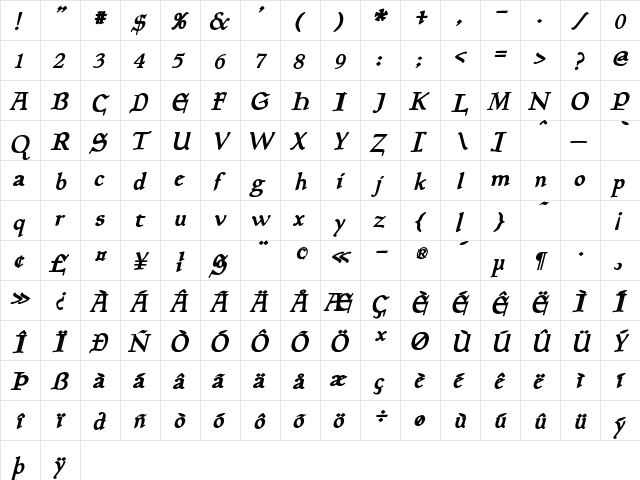
Planewalker Bold Italic Font Preview
| Foundry | Neale Davidson |
| Designer | Neale Davidson |
Design Context for Planewalker Typeface
Planewalker takes a measured approach to typography — its balanced proportions and neutral character make it a reliable workhorse for both digital and print work. The slanted form adds forward momentum and visual energy. The heavy weight commands attention and anchors typographic hierarchies.
Pro Tip: Try Planewalker for annotation and caption copy alongside an upright companion — the contrast in angle creates a dynamic but ordered typographic system.